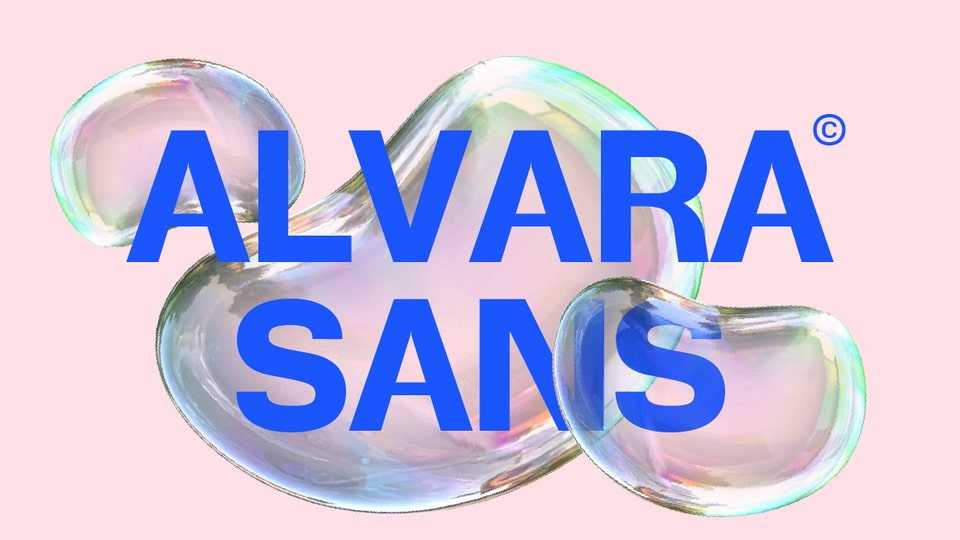
Download Alvara font, a sophisticated sans-serif typeface that blends smooth geometry with a modern minimalist touch with 18 carefully crafted styles.
Designer: Lettertype Studio